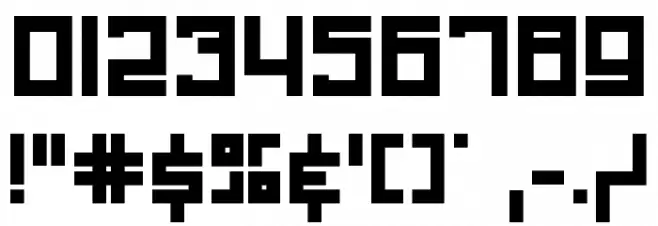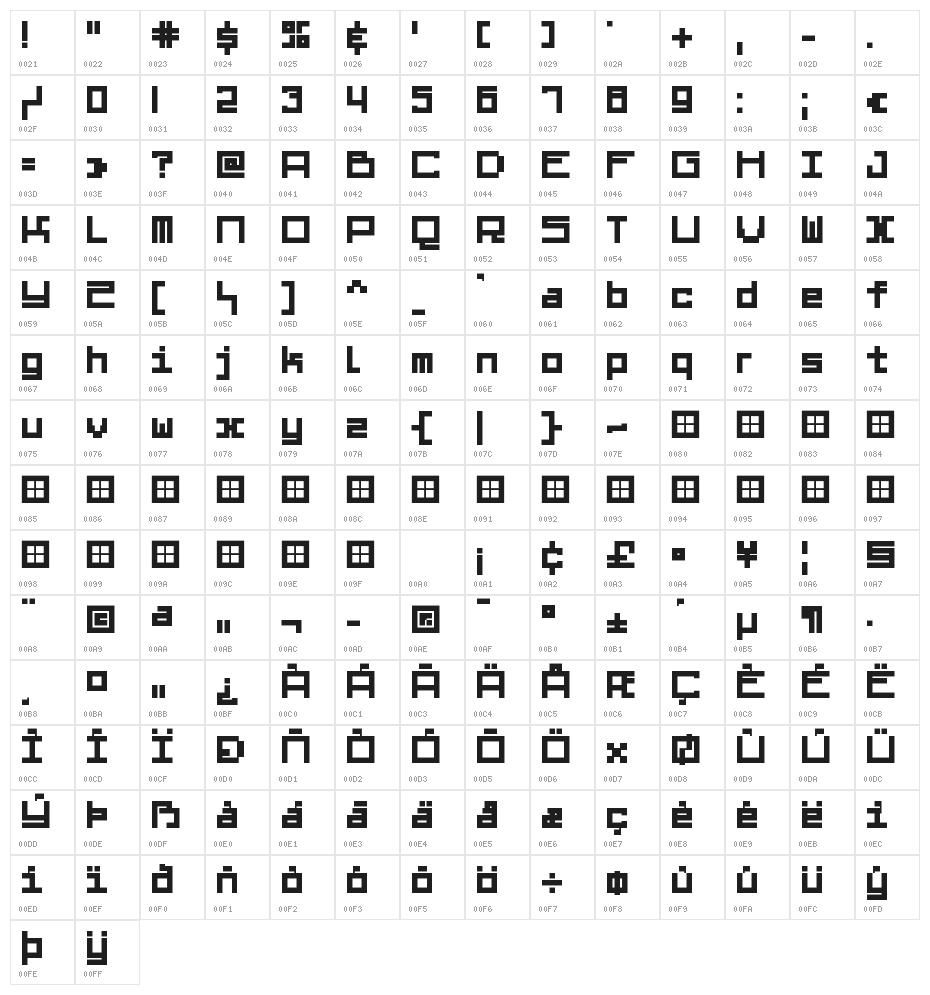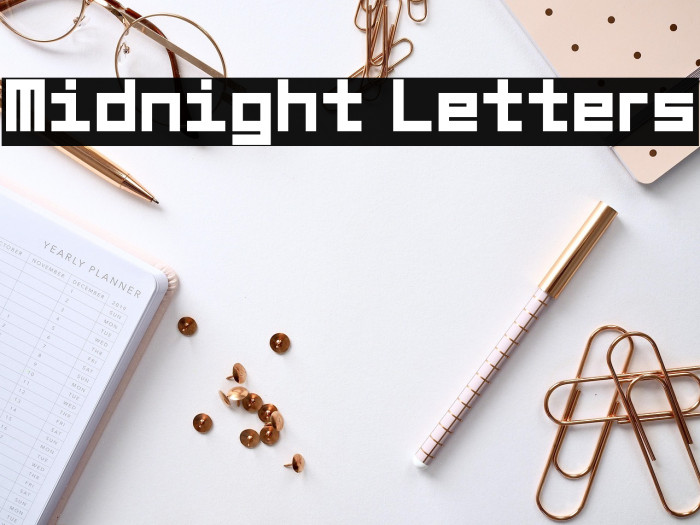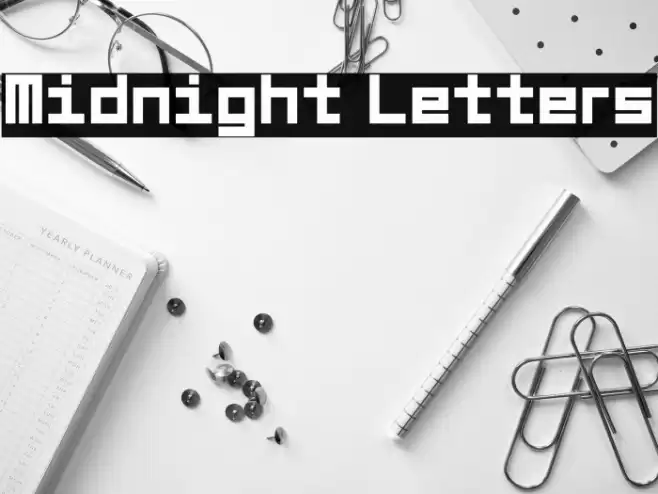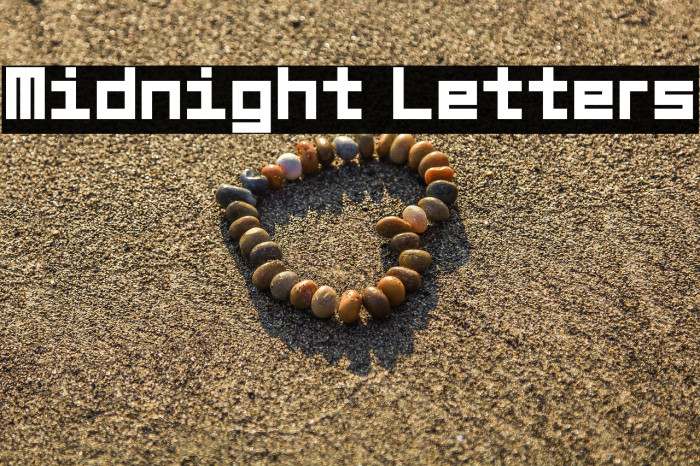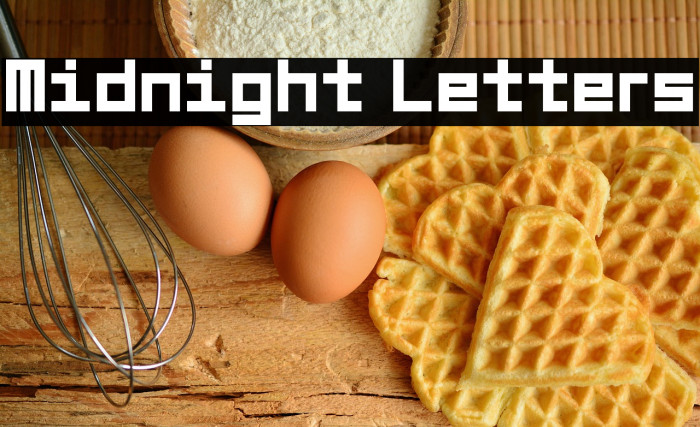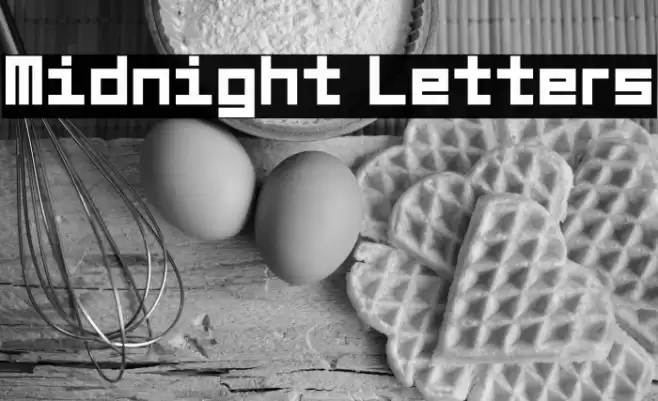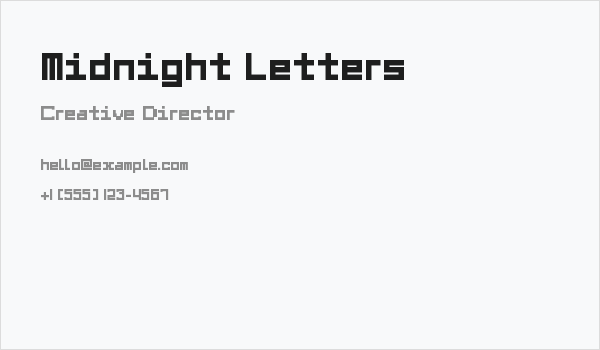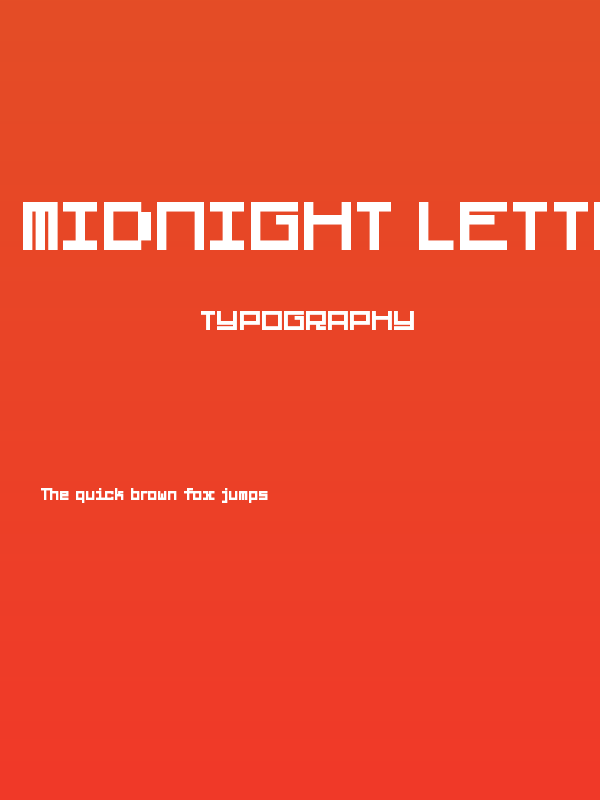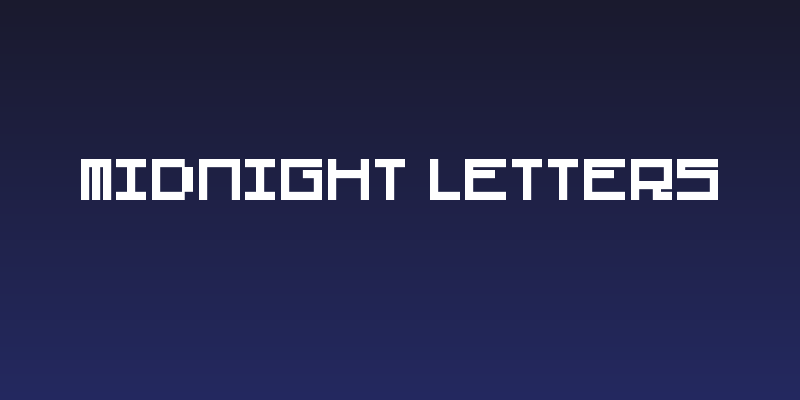
Midnight Letters Font
Midnight Letters Description
This font features a bold, geometric design with a distinctly digital and futuristic aesthetic. The characters are constructed with sharp, angular lines and consistent stroke widths, giving it a pixelated, blocky appearance reminiscent of early computer graphics. The uppercase and lowercase letters maintain a uniform height, contributing to a cohesive and structured look. The numerals and special characters follow the same design principles, ensuring visual harmony across all glyphs. This font's style is both modern and retro, making it versatile for various creative applications.
| Proposed Projects | Ideal for video game design, tech branding, digital art projects, and retro-themed posters. |